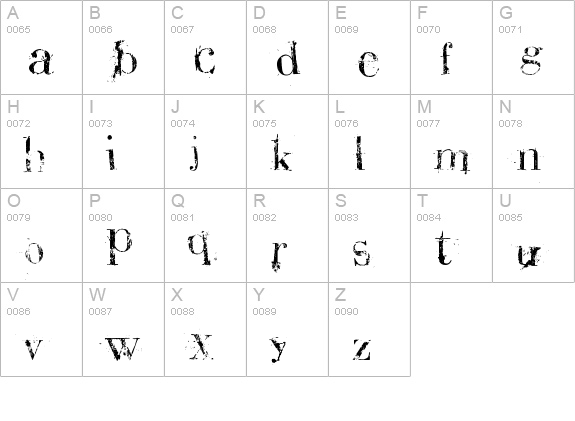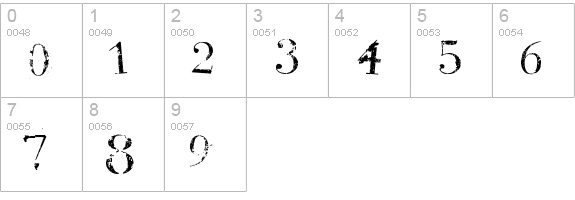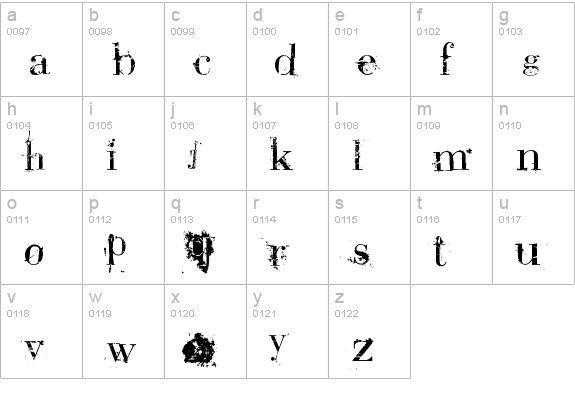
BauerBear Attack Font Details
BauerBear Attack font is a bold and playful typeface that exudes energy and excitement. With its sharp edges and dynamic strokes, this font is perfect for adding a touch of ferocity to your designs. Whether you're looking to create eye-catching headlines or make a statement with your branding, BauerBear Attack font is sure to leave a lasting impression. Best of all, BauerBear Attack font is available for free download at FontsMarket.com. Don't miss out on this unique and versatile font that will take your projects to the next level. Download it today and unleash the power of BauerBear Attack font in your designs!